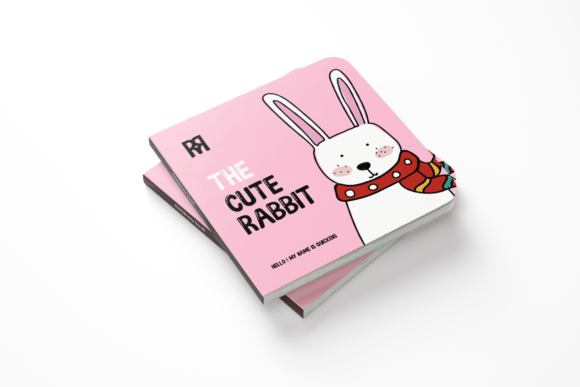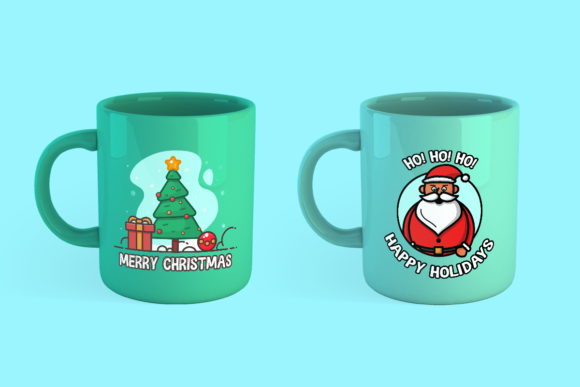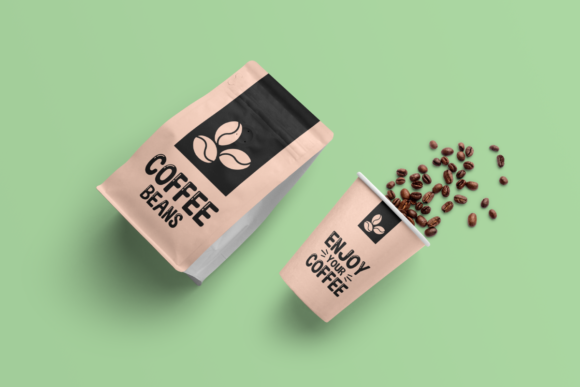
Introduction to Quickens Font
Quickens is a playful and cute display font.
It’s playfulness make it great for creative projects, be it inspirational wall posters or for communicating your brand .